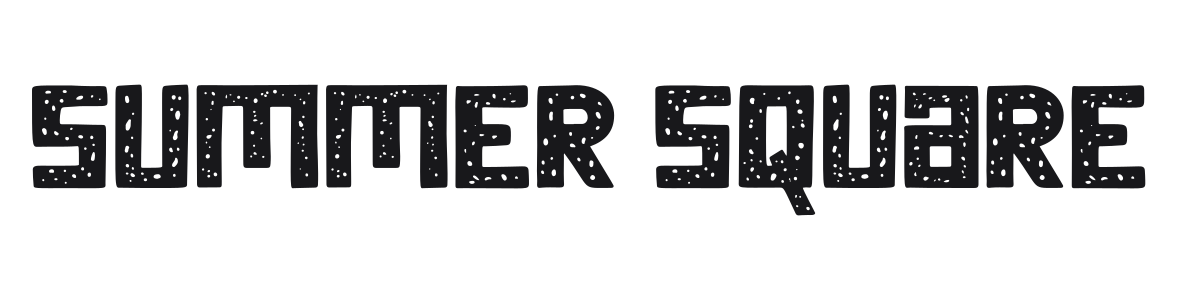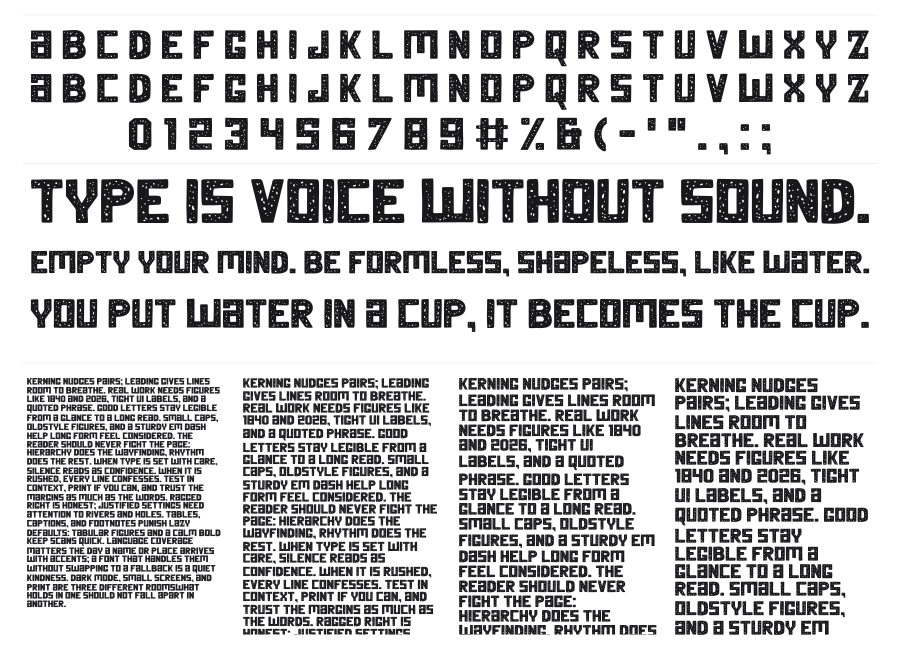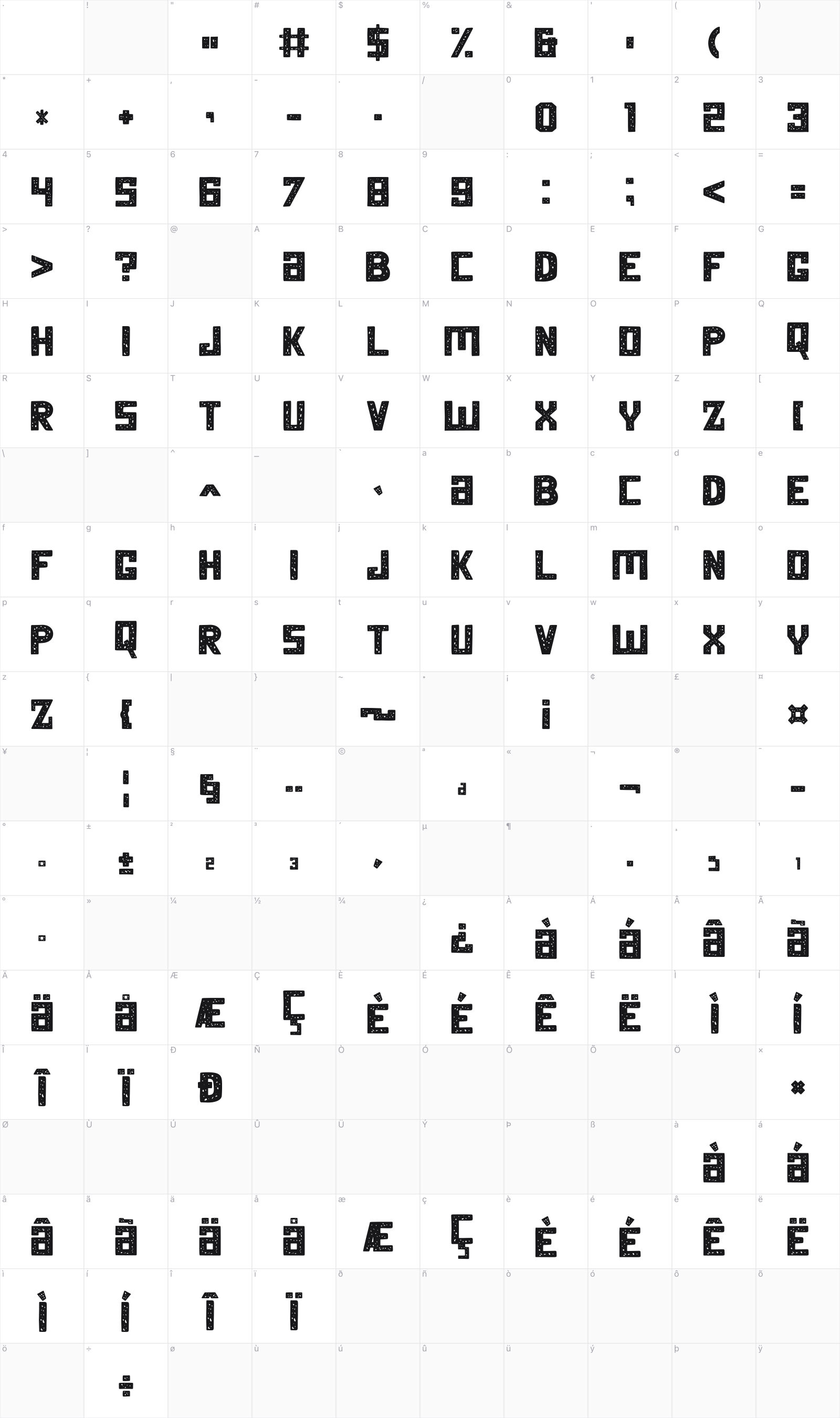
Summer Square
Summer Square is a heavy square sans with a bold, blocky structure and an all-over speckle distress texture that makes every character look like it was stamped or screenprinted by hand. The wide proportions and rigid geometry give it a solid, no-nonsense authority, while the worn surface adds grit and personality. It works at large sizes where the texture can breathe.